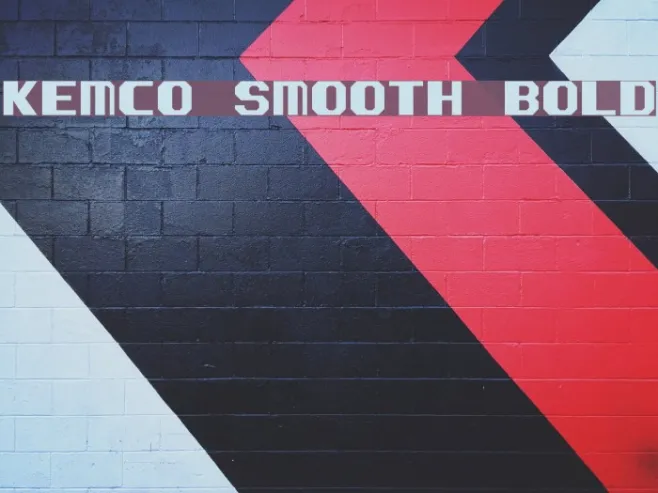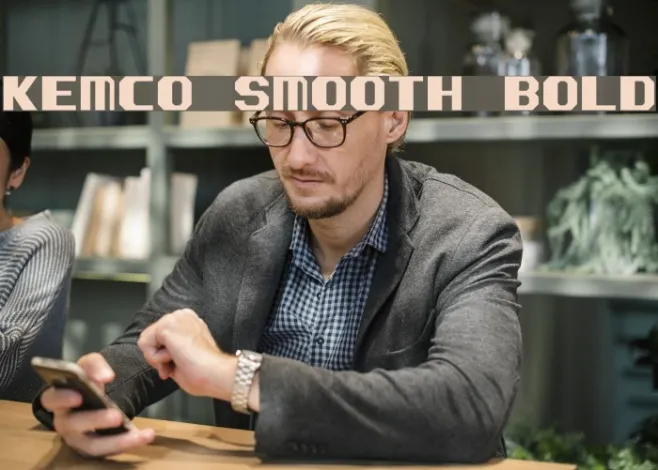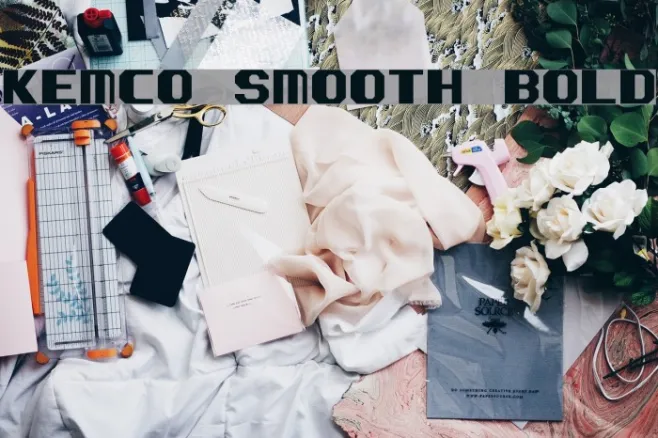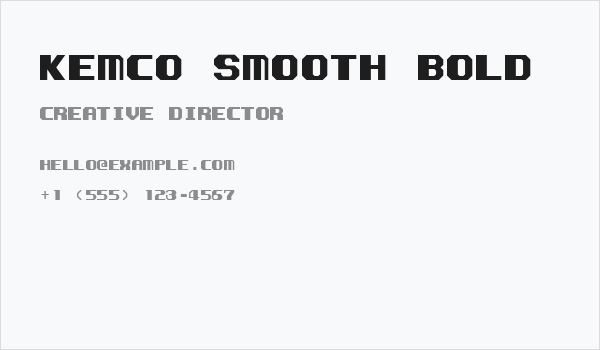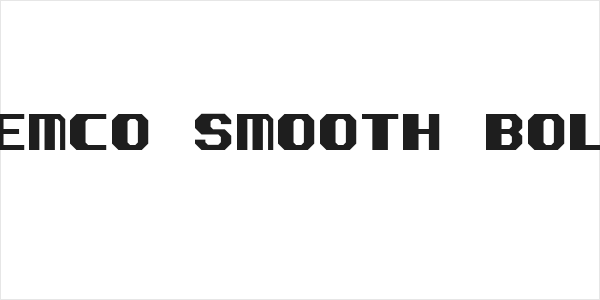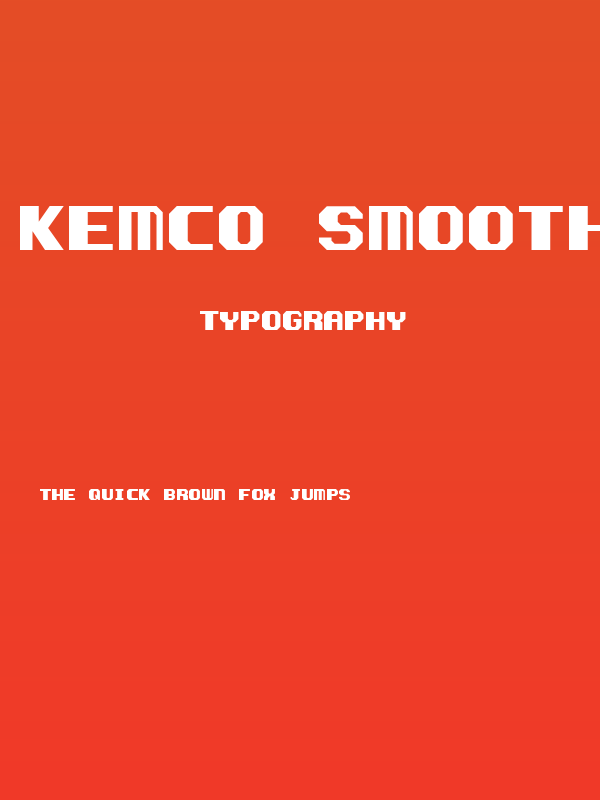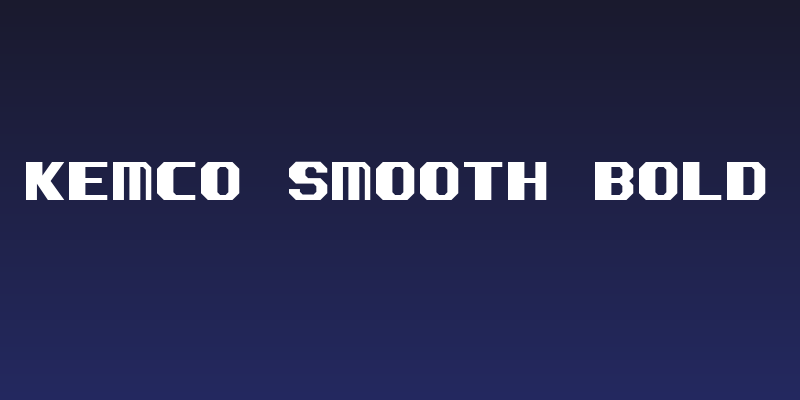
Kemco Smooth Bold Font
Kemco Smooth Bold Description
This font features a bold and geometric design, characterized by its blocky and angular letterforms. The uppercase letters are uniform in height, creating a strong and cohesive appearance. The font has a distinct industrial feel, with sharp edges and a solid presence. The numbers and special characters maintain the same bold and structured style, ensuring consistency across all glyphs. The overall design is modern and impactful, making it suitable for attention-grabbing applications.